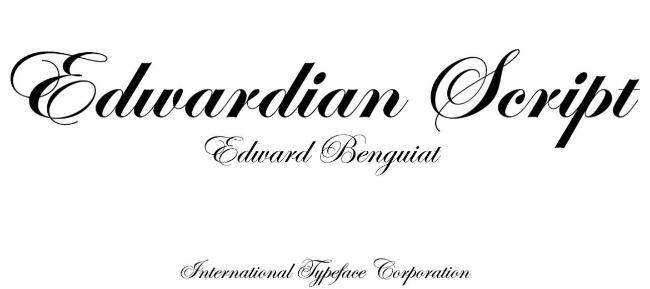
Edwardian Script Font
In the world of typography, few fonts capture the essence of refined elegance quite like Edwardian Script. With its flowing curves, delicate flourishes, and unmistakable vintage charm, this distinctive typeface has been gracing wedding invitations, formal certificates, and luxury brand logos for decades. Named after the opulent Edwardian era of early 20th century Britain, this script font embodies the sophisticated artistry of hand-lettered calligraphy while offering the consistency and versatility of modern digital typography.
Whether you’re designing a romantic wedding suite, crafting an upscale restaurant menu, or adding a touch of old-world glamour to your brand identity, Edwardian Script brings an air of sophistication that few fonts can match. Its graceful letterforms seem to dance across the page, creating an immediate sense of luxury and attention to detail that speaks to discerning audiences. But like any powerful design tool, understanding when and how to use Edwardian Script effectively can make the difference between elegant sophistication and overwhelming ornamentation.